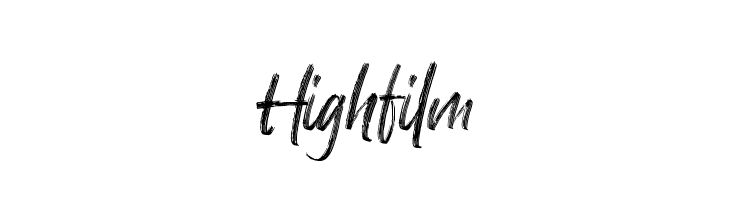
A bold, serif font with characters enclosed in film strip frames, ideal for vintage or cinematic themes.
A bold, filmstrip-themed font with high contrast and decorative appeal.
A playful, hand-drawn font with quirky, uneven strokes.
A bold, dotted display font with a vintage marquee style.
A dynamic, brush-style handwritten font with expressive strokes.
A tall, narrow, and modern condensed font with consistent stroke widths.
A dynamic, italic font with elongated, narrow characters and a modern edge.
A bold, 3D italic font with outlined characters and a dynamic style.
A rough, condensed, semi-italic font with a gritty, dynamic style.
Bold, italicized font with a 3D outline effect.